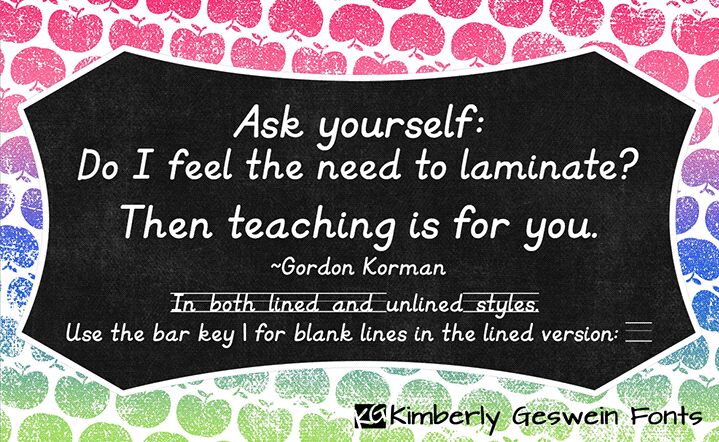
KG Primary Italics by Kimberly Geswein is a free school handwriting font with gently slanted monoline letters and the open construction of classroom penmanship. Rounded turns, tall capitals, and slight shifts in stroke direction keep it approachable and convincingly hand-drawn.
An educational publisher could use it for activity books, classroom posters, and early-reader materials that need a familiar written voice. It also suits children's stationery and tutoring graphics. The simple pen-stroke forms connect these applications to everyday writing practice rather than formal typography.
This font coordinates with KG Primary Penmanship.
Primary Italics Lined includes a blank space assigned to the spacebar. To add a lined section, use the | (bar) key. On my keyboard, this key is below Backspace and shares a key with the backslash. The location may differ on other keyboards. This allows both lined and unlined spaces.
KG Primary Italics